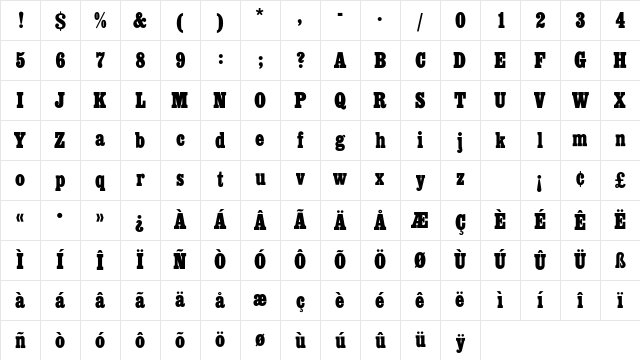
EgyptianEF BoldCondensed
Design Context for EgyptianEF
EgyptianEF features prominent, blocky serifs that give it a confident, grounded presence - equally at home in editorial settings and bold branding work. Its bold stroke weight gives it real presence on the page. Its narrow stance lets it pack a punch even in space-constrained designs.
Pro Tip: Use EgyptianEF for headlines and subheadings where its slab serifs can make an impression. It also holds up well in mid-size body copy thanks to its sturdy construction.